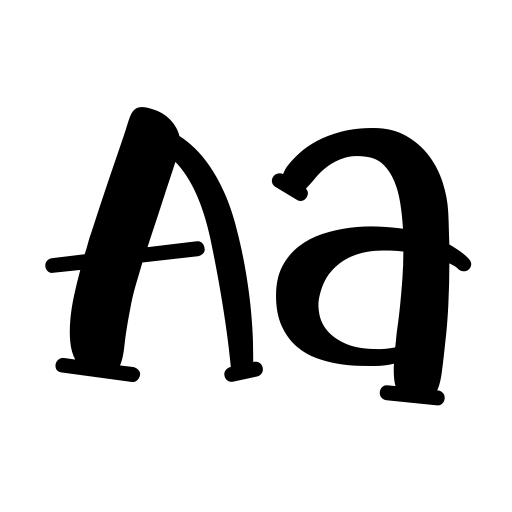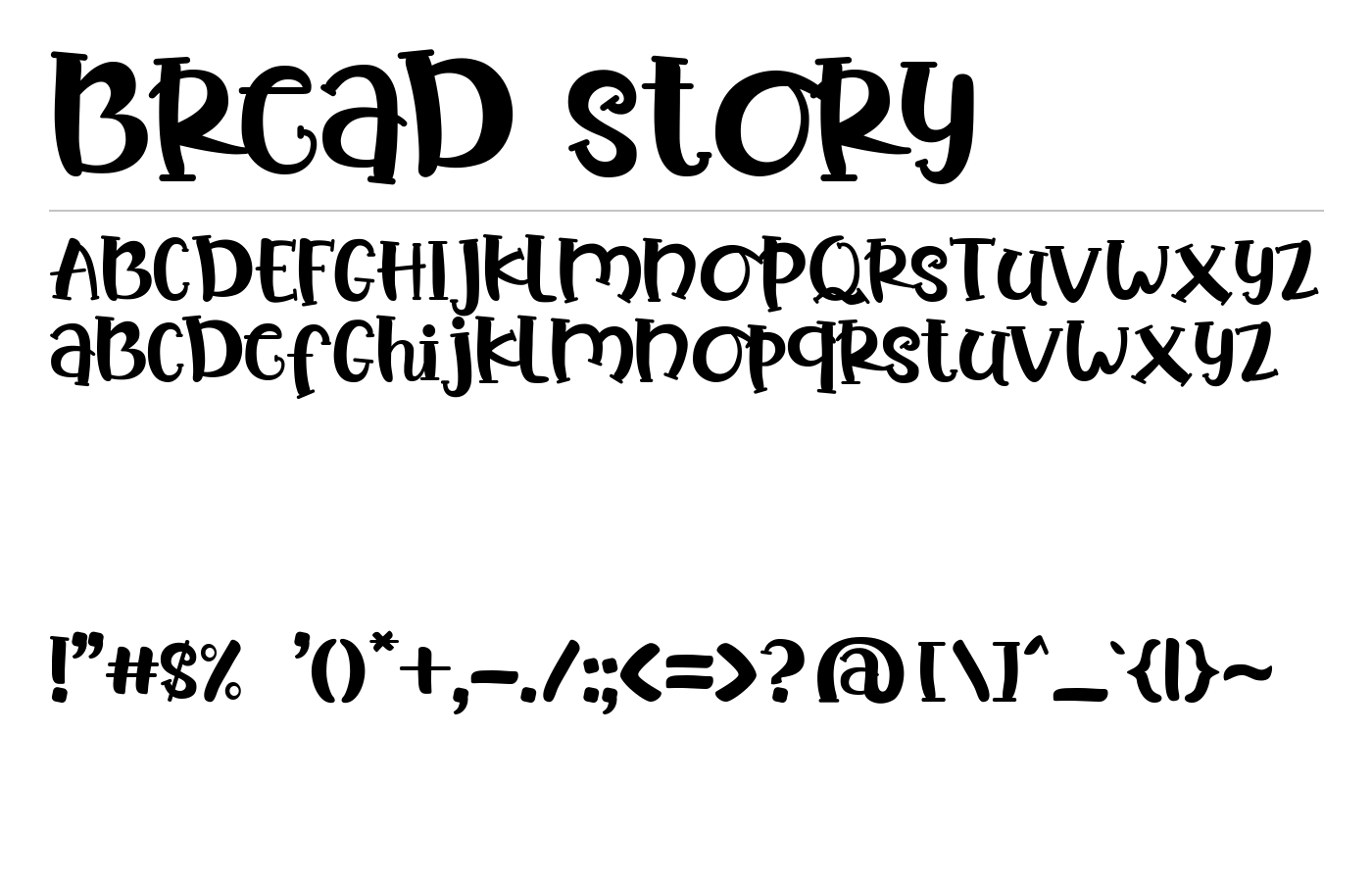
Bread Story is a playful and quirky sans serif font with a hand-drawn feel, featuring irregular, whimsical letterforms and moderate stroke contrast. Its unique character shapes and lively curves make it perfect for creative, fun branding, posters, and anything that needs a friendly, informal touch. This font works well to grab attention in headlines or logos where personality and charm are key.
Bread Story Font
About Bread Story Font